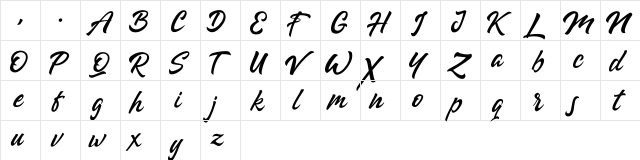
Fabiana Regular
| Designer | hustletter |
Design Context for Fabiana Typeface
Fabiana is a composed and adaptable typeface that performs quietly and consistently across a wide range of design contexts.